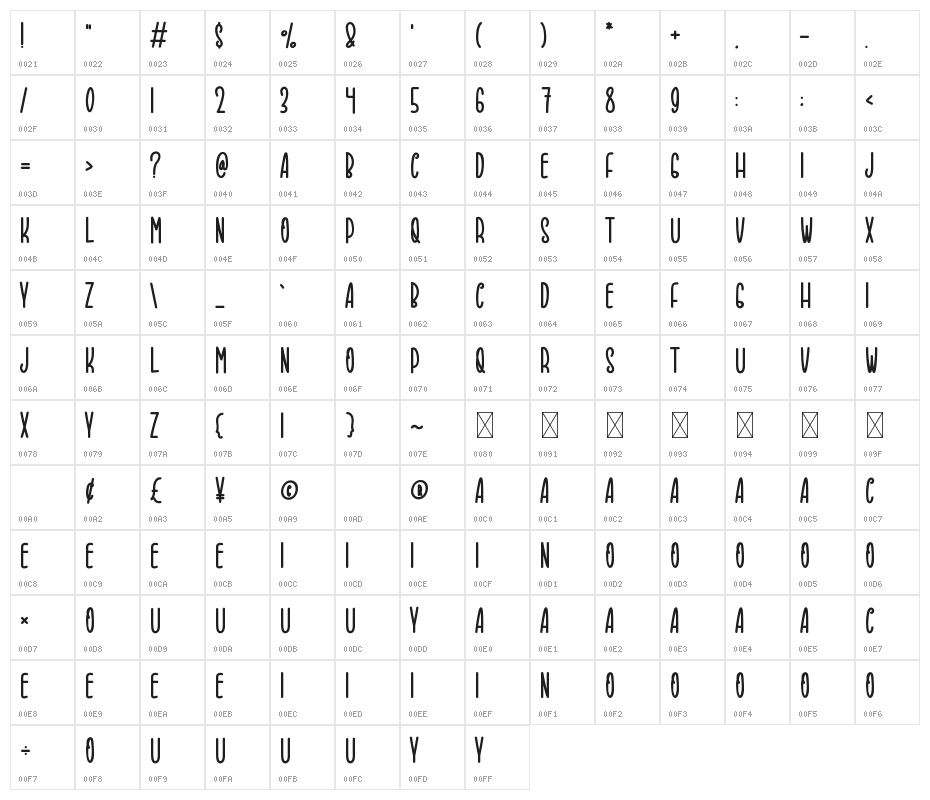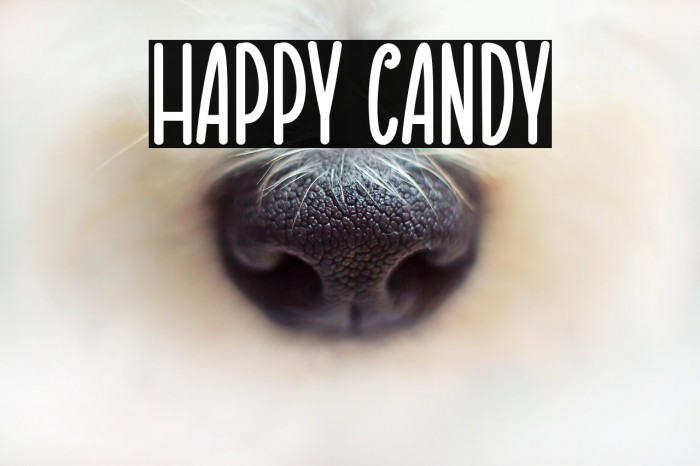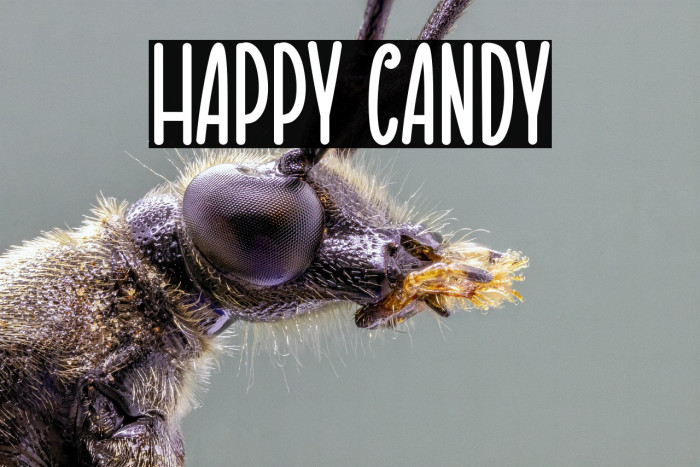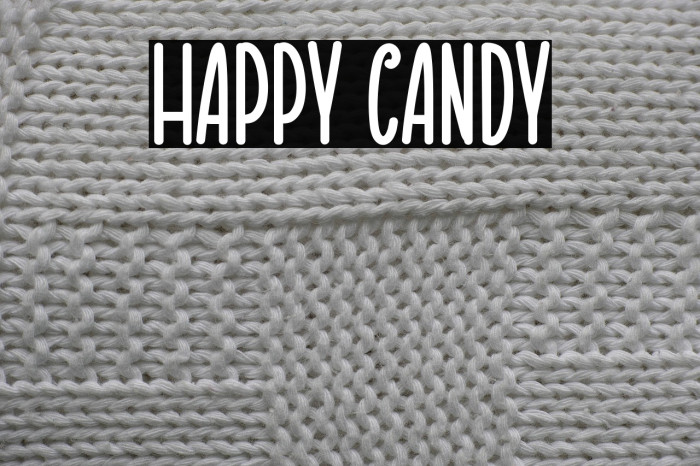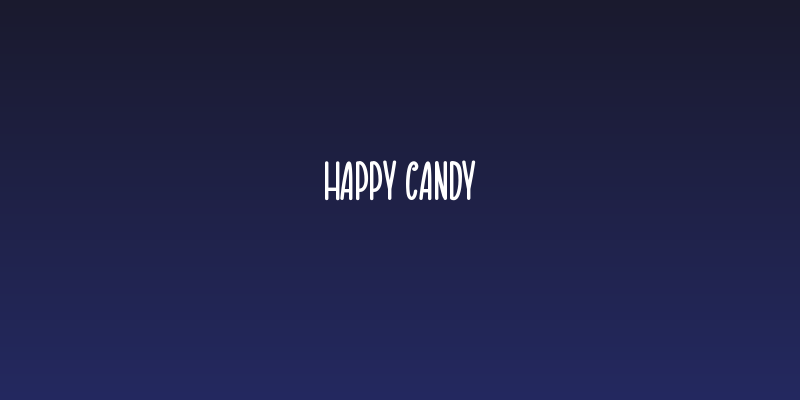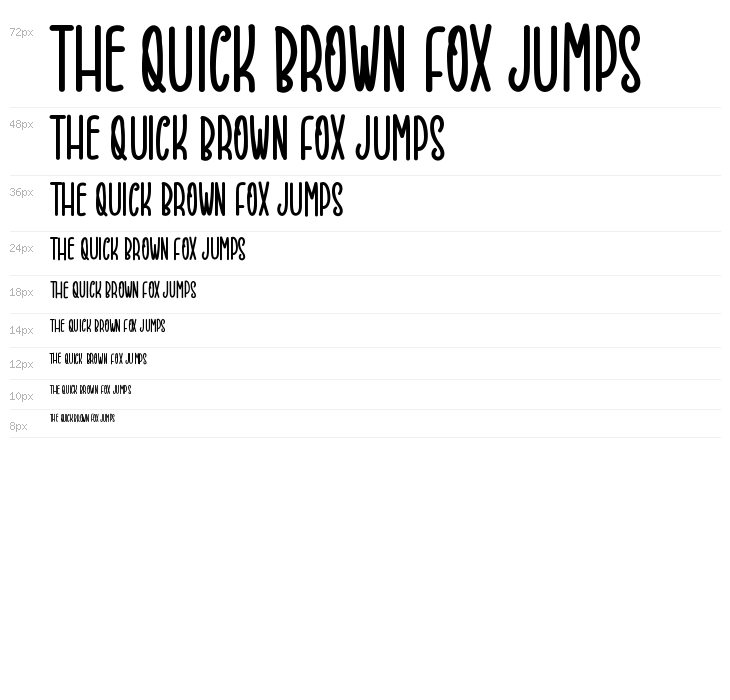
Happy Candy Font
Happy Candy Description
This playful and rounded font exudes a cheerful and whimsical vibe, making it perfect for designs that aim to convey fun and friendliness. The letters are tall and slightly narrow, with smooth curves and a consistent stroke width that gives it a clean and modern appearance. The font maintains a uniformity in its character shapes, which enhances readability while still retaining a unique personality. Its simplicity and charm make it versatile for various creative projects.
| Proposed Projects | Ideal for children's books, playful branding, party invitations, and casual social media graphics. |